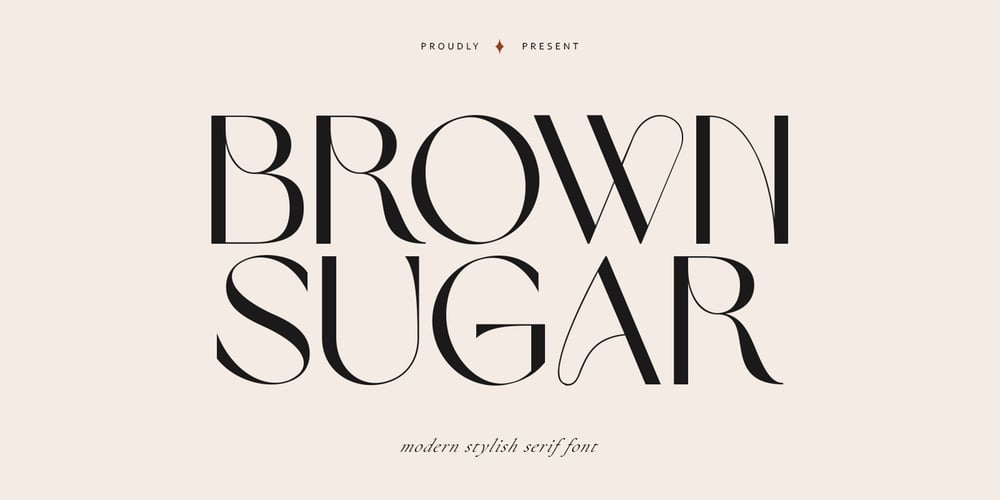
Brown Sugar
Brown Sugar font
Brown Sugar Font Family was designed by Satriyo Hutomo and published by Muntab Art. Brown Sugar contains 1 styles and family package options. Brown Sugar fonts includes uppercase letters, numerals, a large range of punctuation. Serif font with modern stylish style. Created for poster, web design, branding, illustrations, badges and some other works.Please contact us if you have any question, we are happy to help you!Thank you!